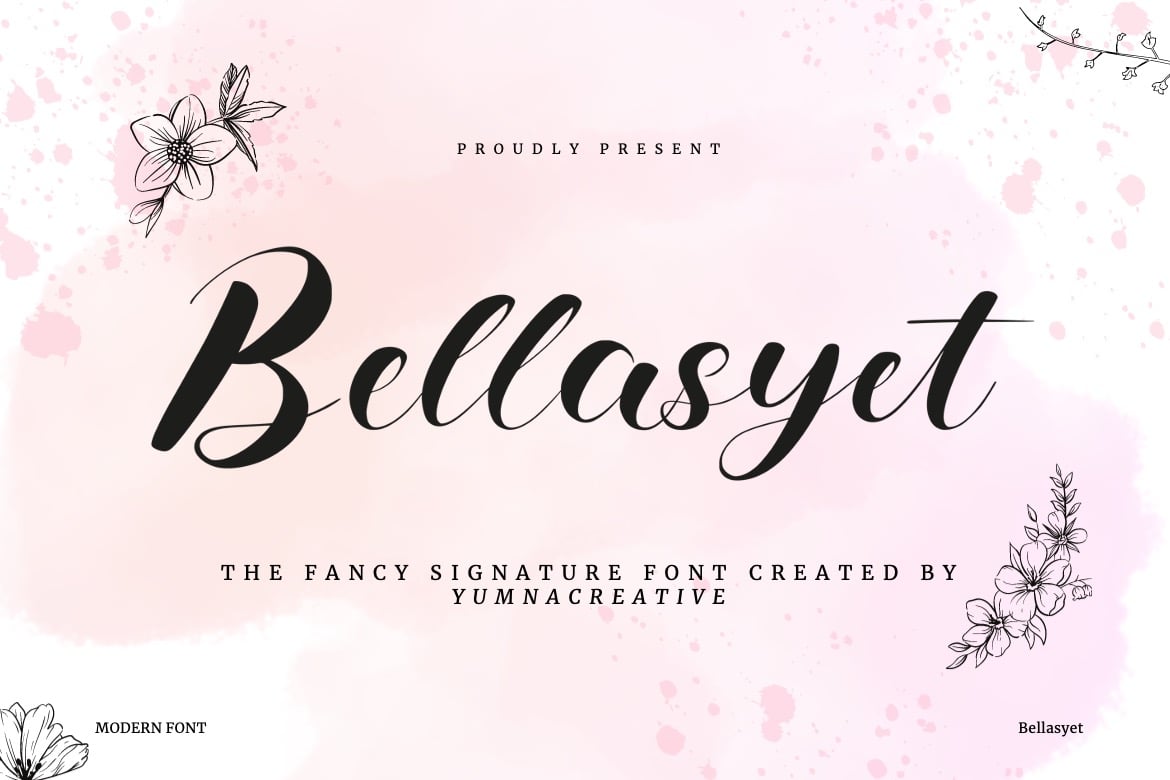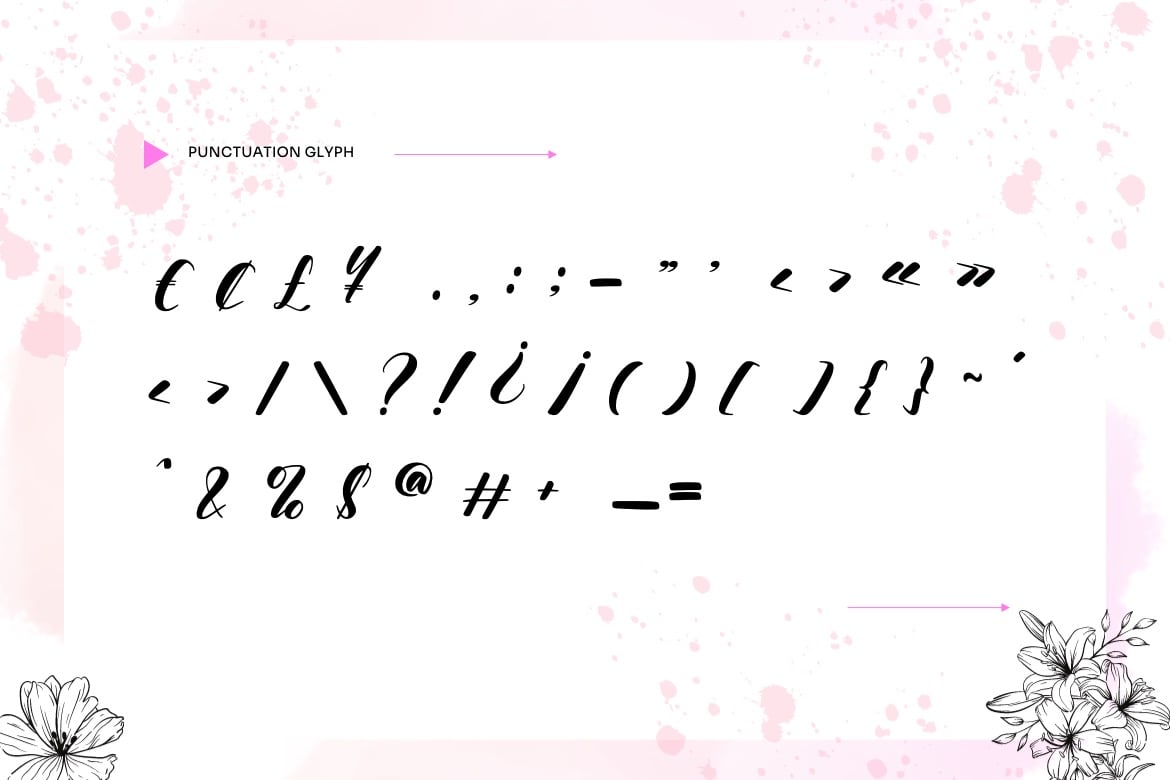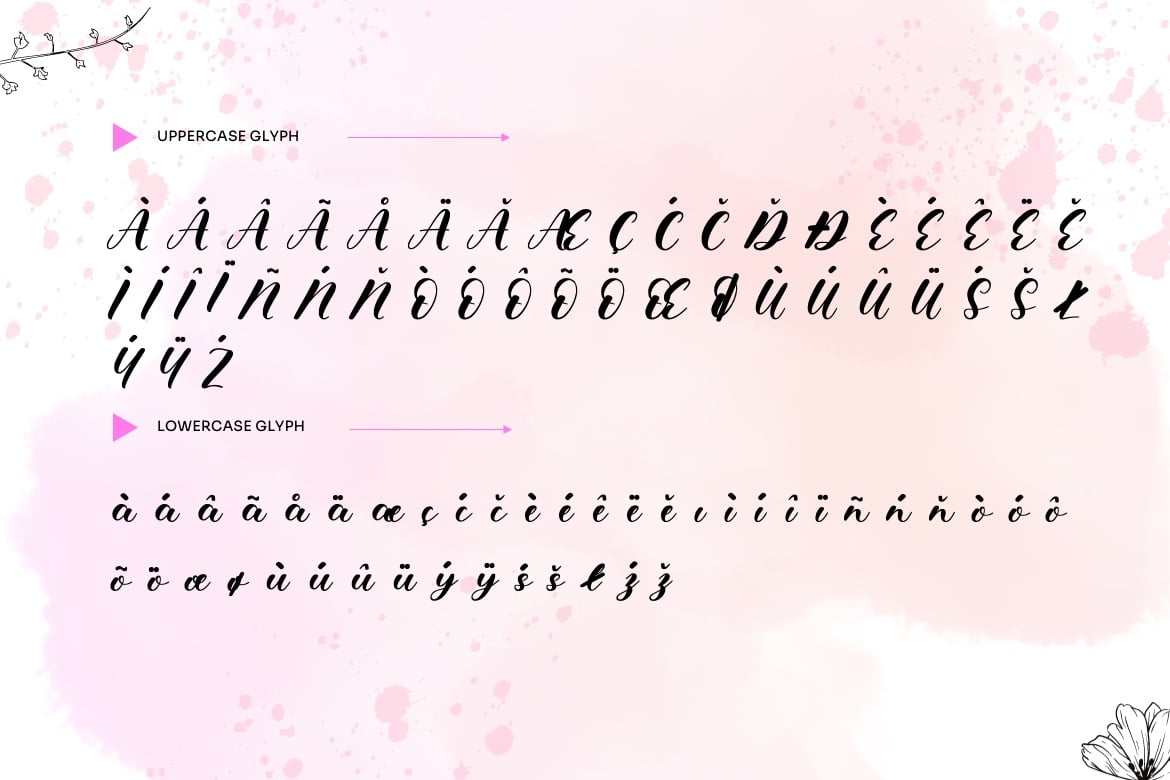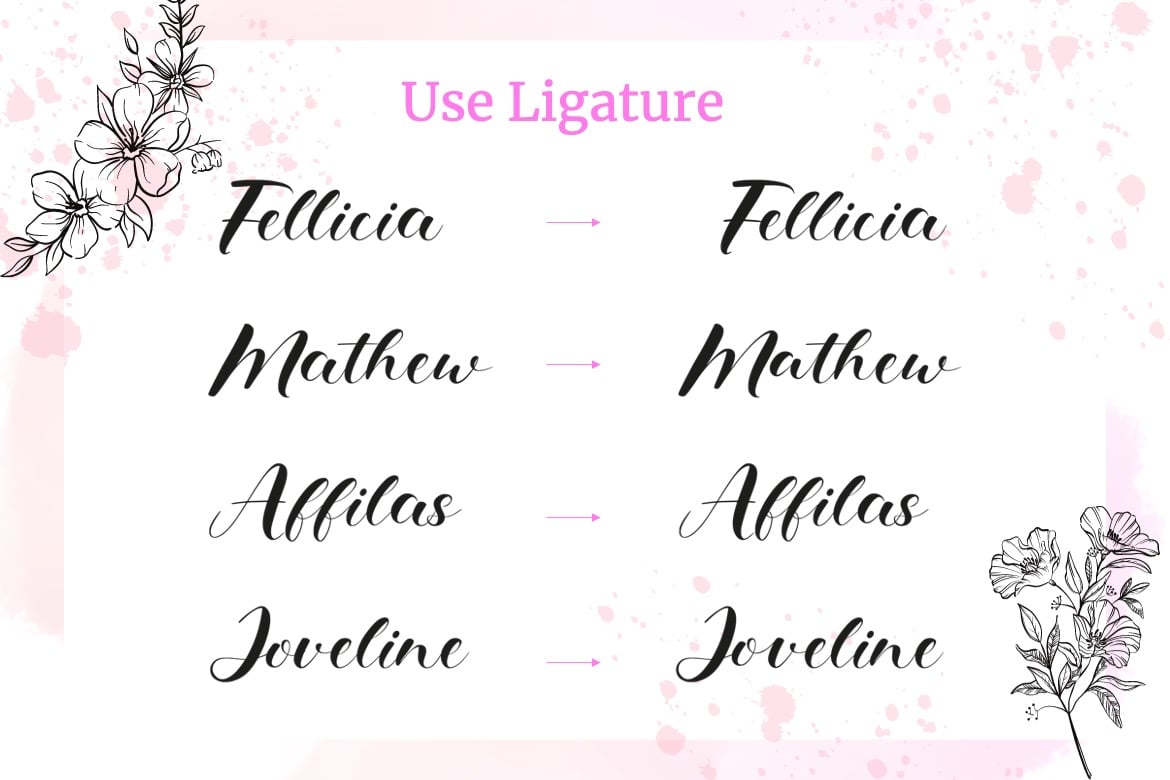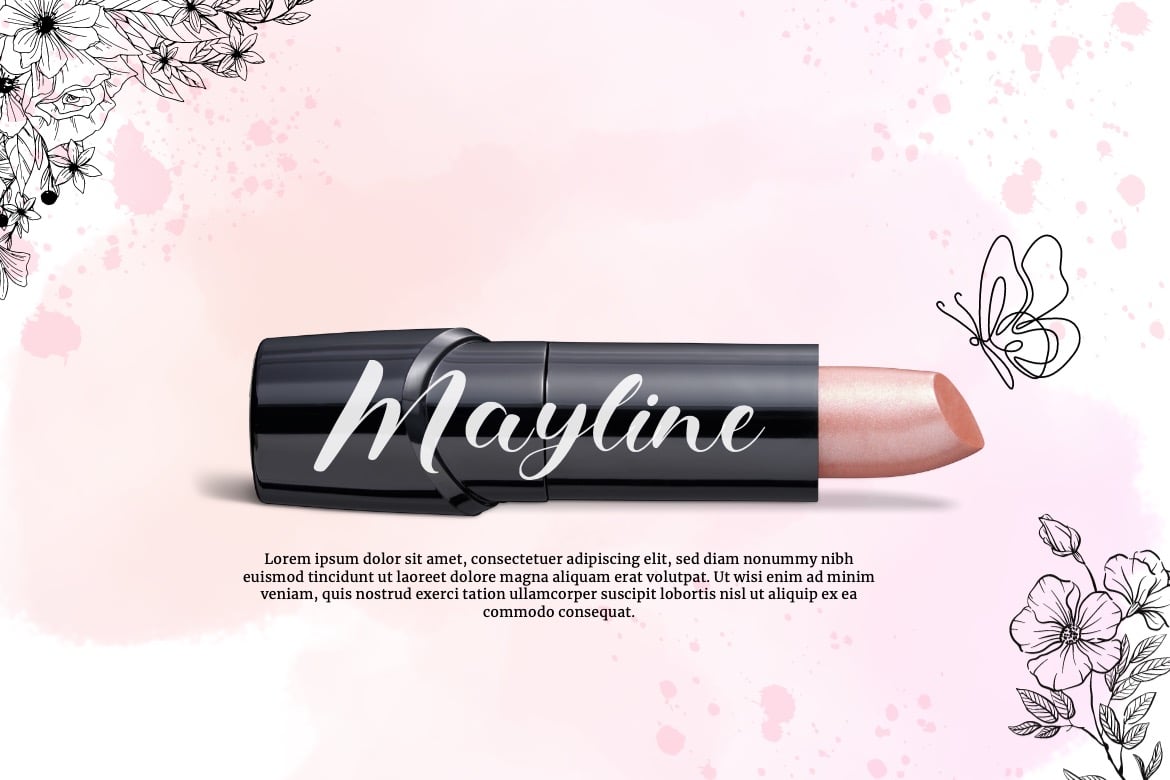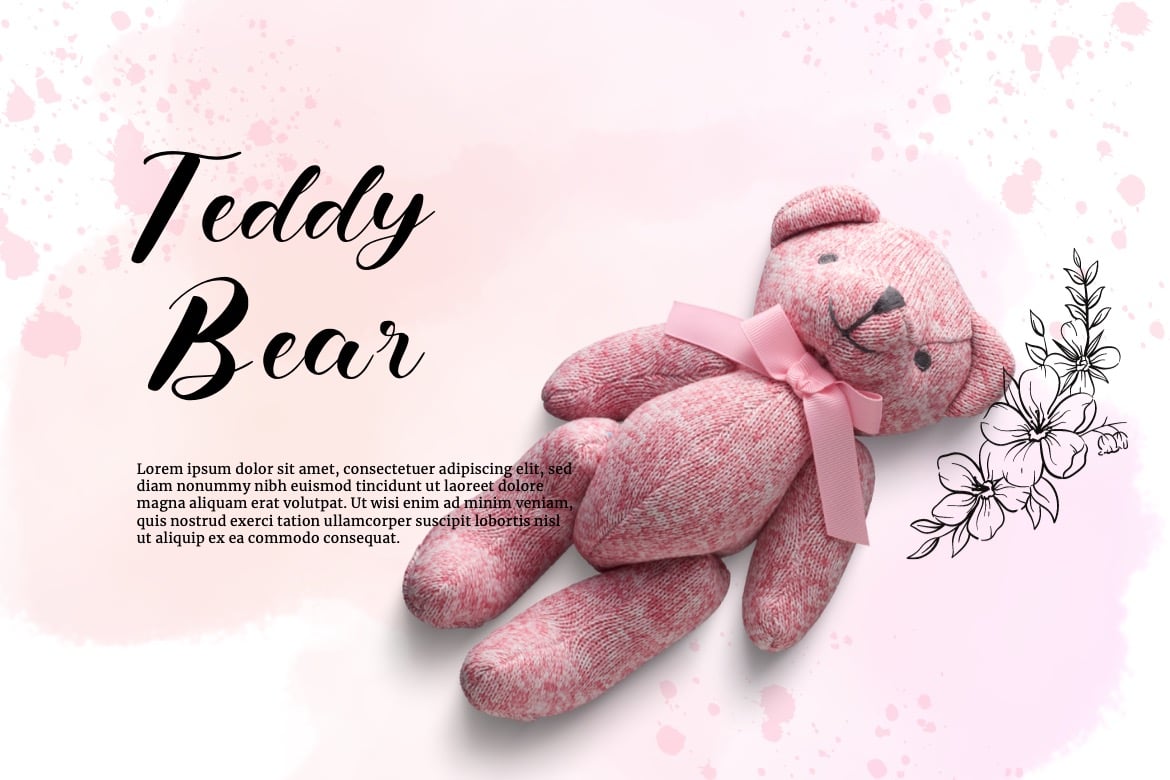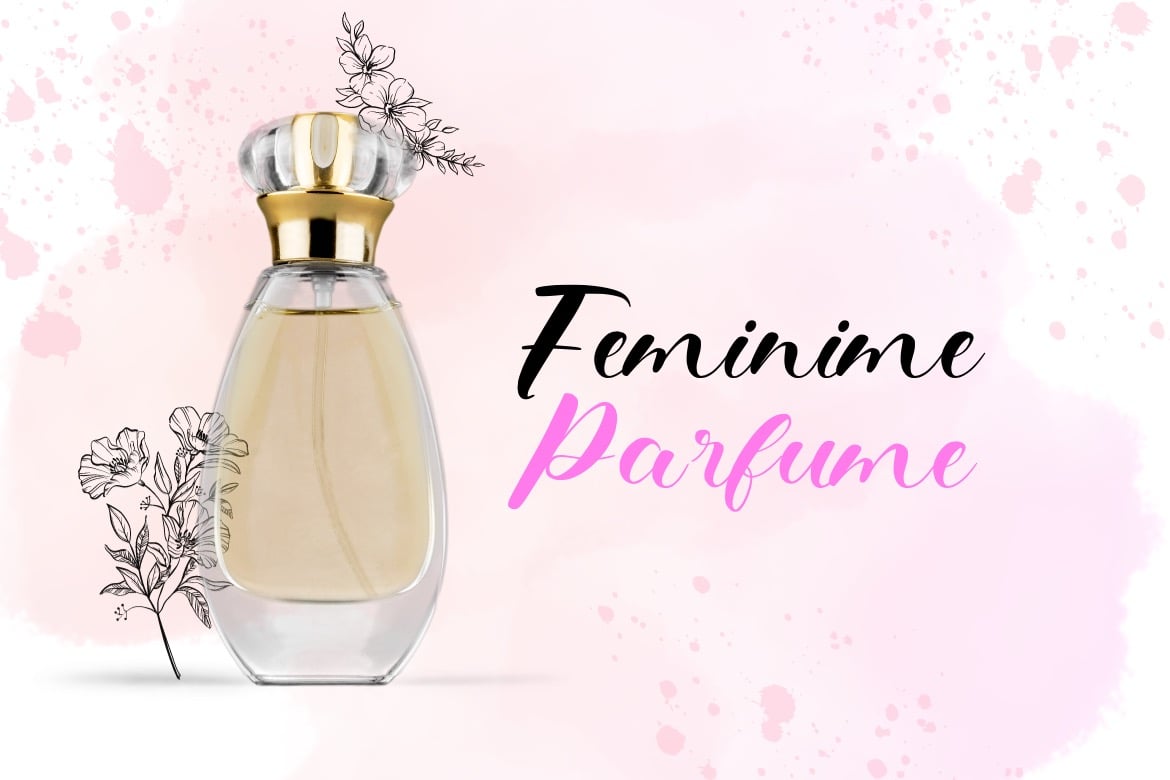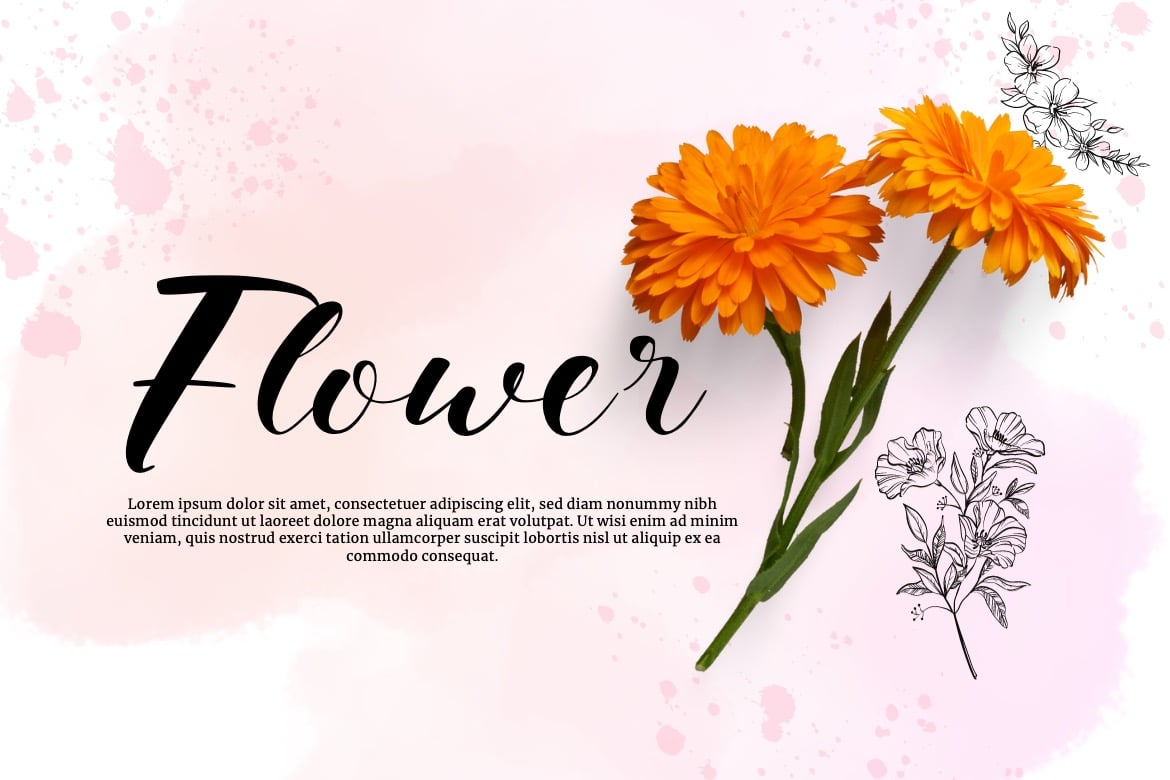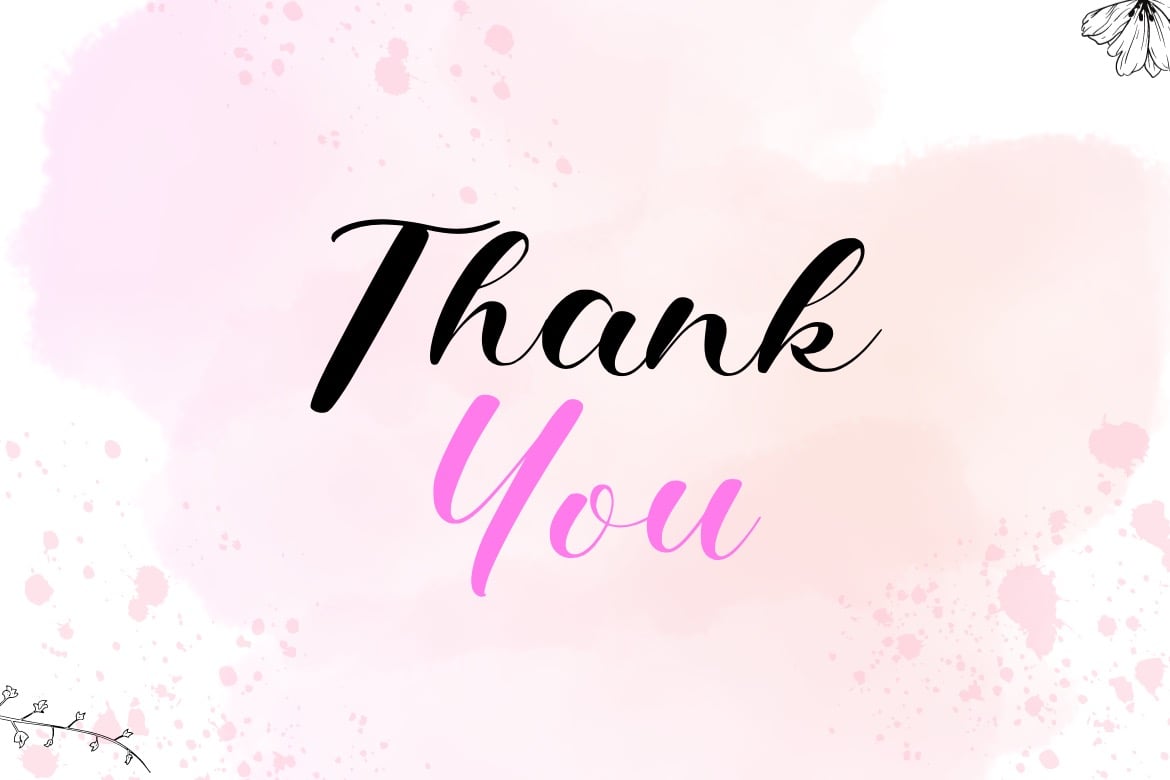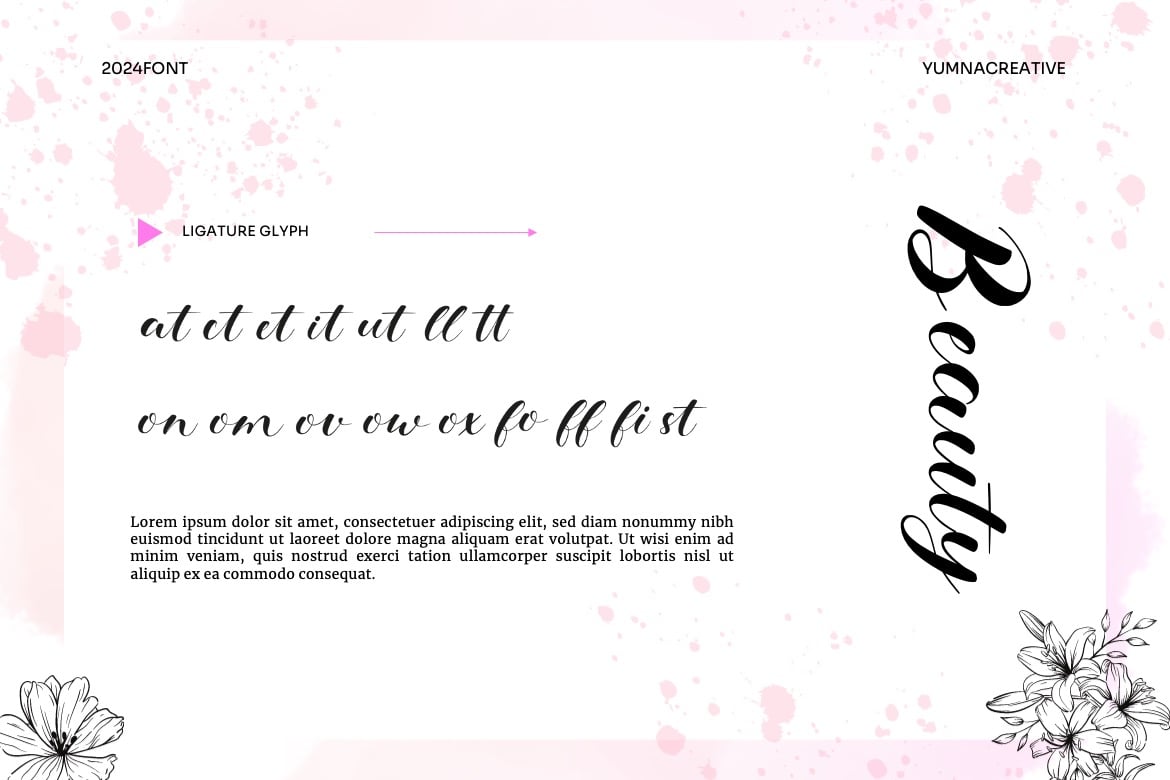
Bellasyet – Fancy Signature Font
Introducing Bellasyet – Fancy Signature Font
This Font is a delicate, elegant and flowing handwritten font. It has beautiful and well as a unique blend of ligatures a letter, so that the authors compose it with a and little swirly embedding, so that a modern font is formed and ready to make a statement by adding elegant and unique flair to your next design project. Add it to your most creative ideas and notice how it makes them come alive!
•   Uppercase & Lowercase
•   Ligature
•   Numbering & Punctuation
•   Multilingual Supports